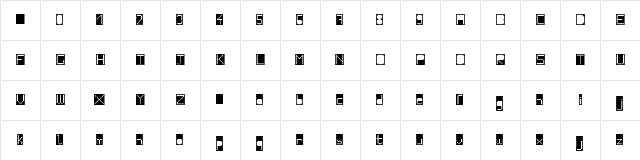
Complete WLM Pixel Party Black Fill Regular glyph index. Displaying only characters natively supported by WLM Pixel Party Black Fill Regular font.
WLM Pixel Party Black Fill is rooted in pixel-grid construction, making it a natural fit for game UI, retro computing aesthetics, and digital nostalgia projects.
Pro Tip: Use WLM Pixel Party Black Fill at sizes that align with its pixel grid for the sharpest rendering - scaling to non-integer multiples can introduce unwanted blur.